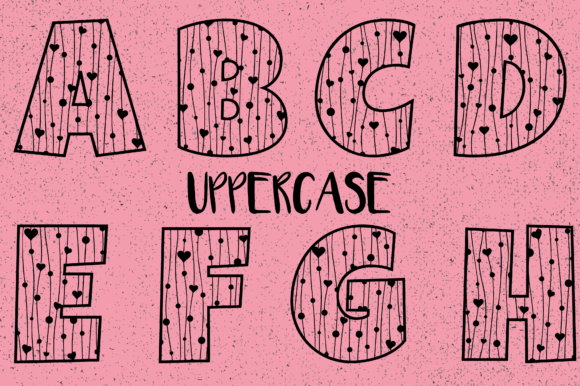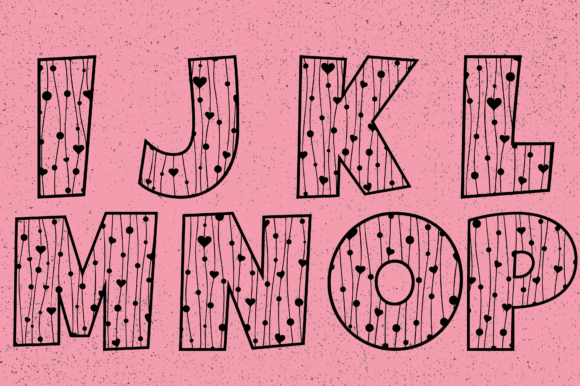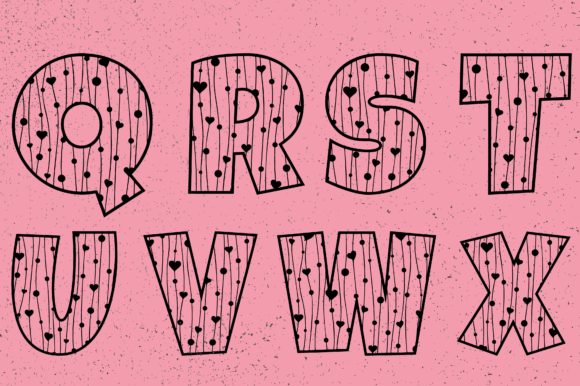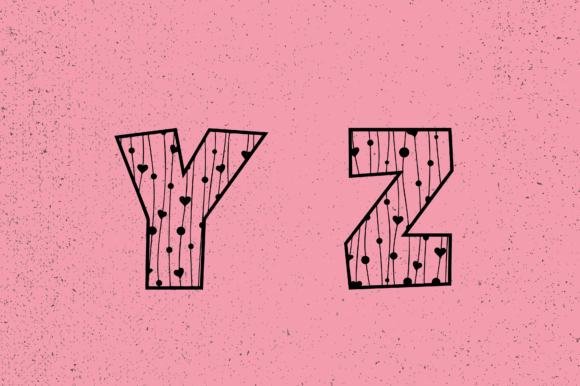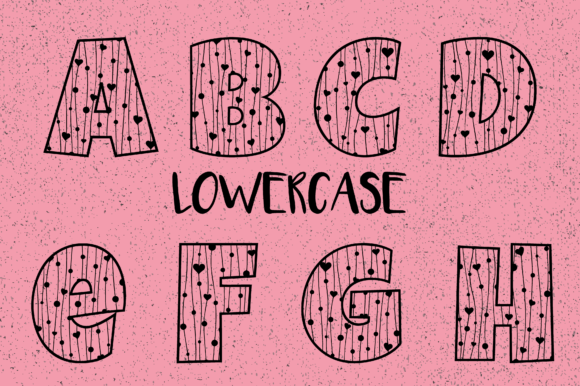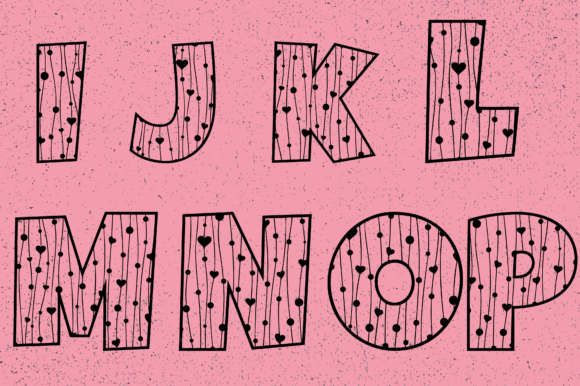
Introducing Amone Font: The Perfect Decorative Font for Romantic Projects
Are you a designer or crafter looking for a unique and elegant font to add a touch of romance to your projects? Look no further than Amone Font, a beautiful pattern decorative font designed specifically for projects related to girls, romance, love, and Valentine’s Day.
What is Amone Font?
Amone Font is a one-of-a-kind decorative font that features intricate patterns and designs, perfect for adding a touch of elegance and sophistication to any project. Whether you’re working on product packaging, branding projects, magazine covers, social media graphics, or wedding-related projects, Amone Font is the perfect choice.
Key Features of Amone Font
- Unique Pattern Design: Amone Font features a unique pattern design that is sure to make your projects stand out.
- Romantic and Elegant: The font’s romantic and elegant design makes it perfect for projects related to love, Valentine’s Day, and romance.
- Versatile: Amone Font can be used for a variety of projects, including product packaging, branding projects, magazine covers, social media graphics, and wedding-related projects.
- Easily Customizable: The font is easily customizable, allowing you to adjust the size, color, and style to fit your project’s needs.
Amone Font is perfect for designers and crafters who want to add a touch of elegance and sophistication to their projects. Whether you’re creating custom wedding invitations, designing romantic social media graphics, or crafting beautiful product packaging, Amone Font is the perfect choice.
Benefits of Using Amone Font
- Adds a Touch of Elegance: Amone Font adds a touch of elegance and sophistication to any project.
- Increases Visual Appeal: The font’s unique pattern design increases the visual appeal of your projects, making them stand out from the crowd.
In conclusion, Amone Font is a unique and elegant decorative font that is perfect for designers and crafters who want to add a touch of romance and elegance to their projects. With its versatile design, easily customizable features, and perfect for commercial use, Amone Font is a great choice for any project related to girls, romance, love, and Valentine’s Day.